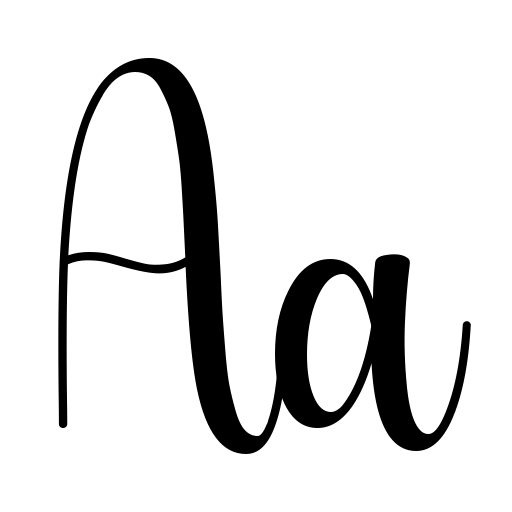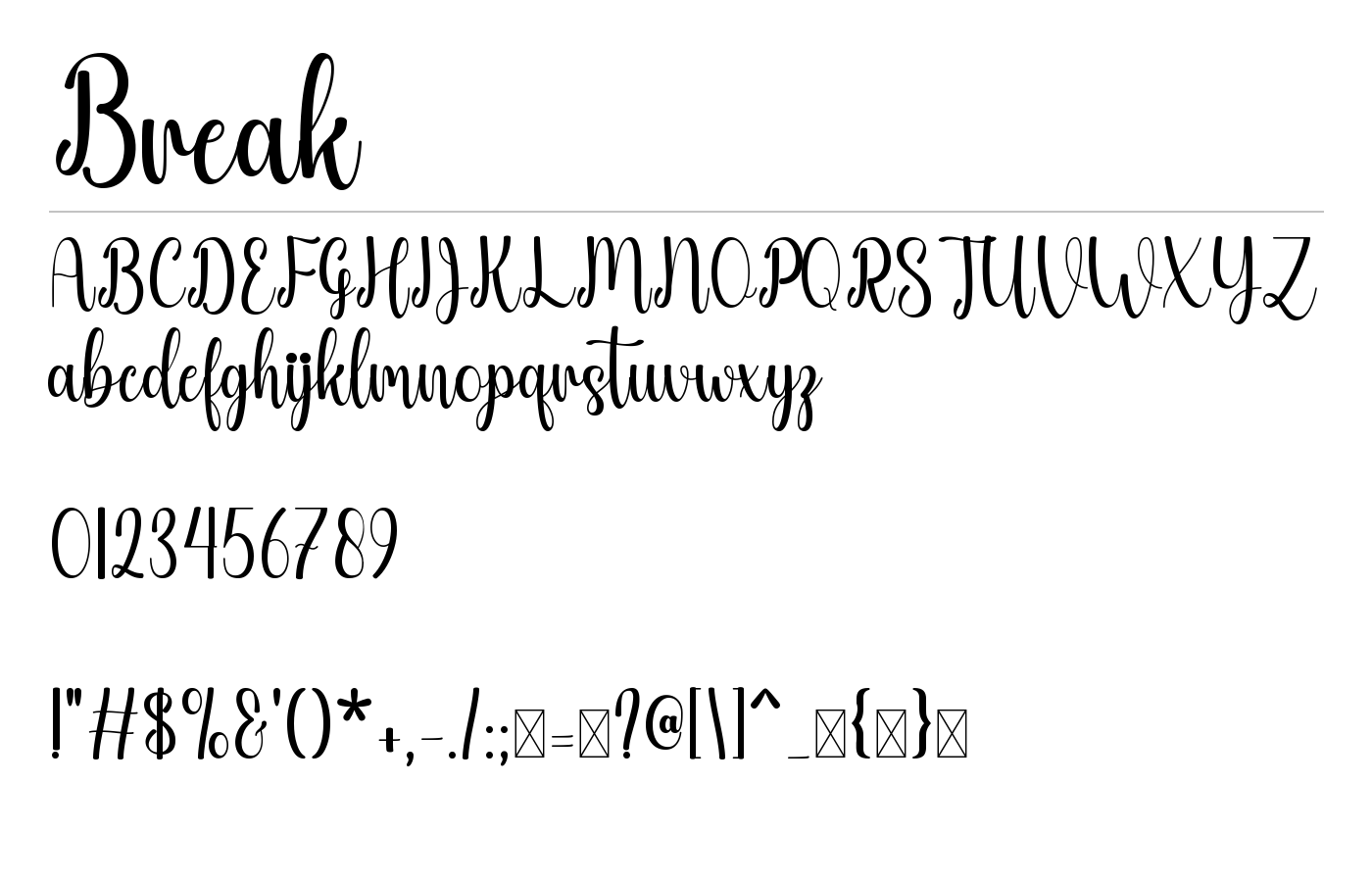
Break Font is a playful and elegant script typeface with a handwritten feel, featuring tall, narrow letterforms with smooth, rounded strokes and charming loops. Its slender, upright characters and high contrast between thick and thin lines lend a sophisticated yet approachable personality, making it ideal for stylish branding, invitations, and creative headlines. This font works best where a whimsical but refined touch is needed, adding a unique flair to fashion, boutique, or personal design projects.
Break Font
About Break Font